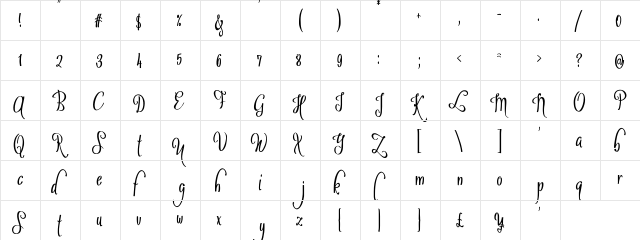
Sybelia Demo
Design Context for Sybelia Typeface
Sybelia is a composed and adaptable typeface that performs quietly and consistently across a wide range of design contexts.